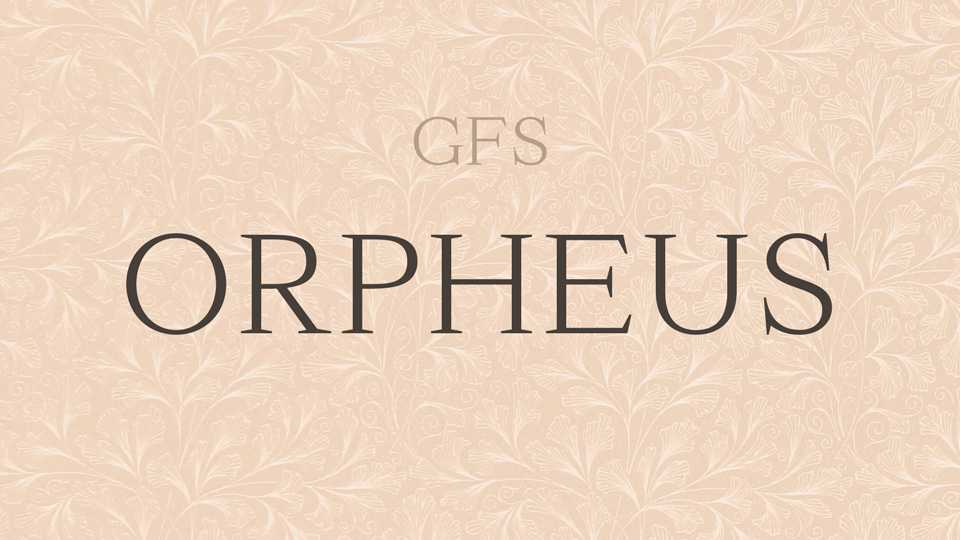
Download GFS Orpheus font, an old style serif typeface based on the text found in a school textbook in Athens on 1887. GFS Orpheus design is characterized by an outstanding subtlety and purity in its letterforms.